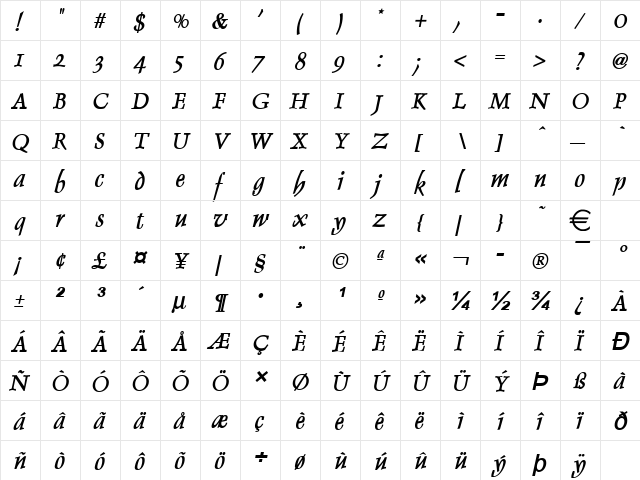
Dolphin BoldItalic
Design Context for Dolphin Typeface
Dolphin offers clean, dependable letterforms without strong stylistic allegiance, making it a practical choice for designers who need flexibility. The dynamic lean of this cut emphasises speed and emphasis in any layout. Its bold stroke weight gives it real presence on the page.
Pro Tip: Try Dolphin for annotation and caption copy alongside an upright companion — the contrast in angle creates a dynamic but ordered typographic system.